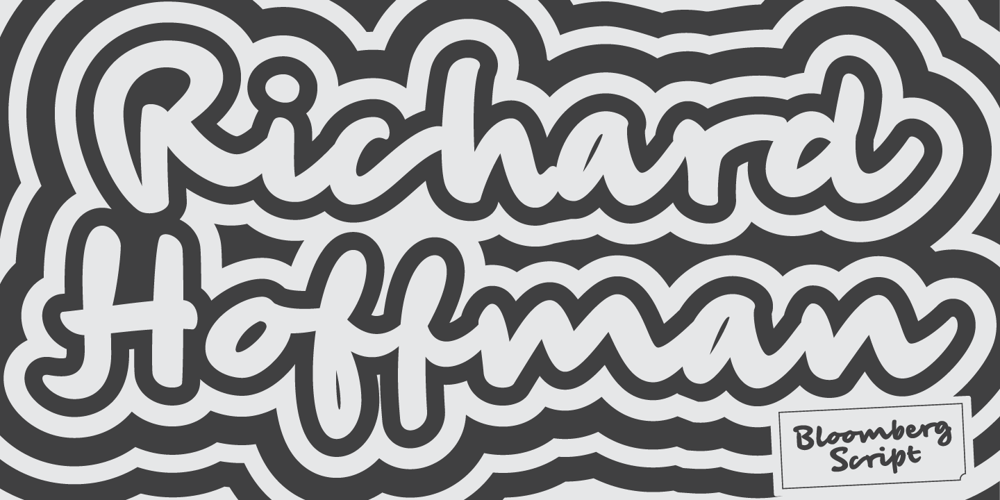
Bloomberg Script
Bloomberg Script font
Bloomberg Script Font Family was designed by Andrés Ramírez and published by Vástago Studio. Bloomberg Script contains 1 styles and family package options. Bloomberg Script is a typeface designed from the exploration with the different tools we use to write each day on post its, notebooks, etc. But, applying the traditional handwriting repair method in the construction, spacing the glyphs, and giving it texture of fast strokes, ideal for handletters… is more organic. And finally, we have this typeface, a very comfortable letters to read on packaging, poster ads, screen and every display applications; this is Bloomberg Script.